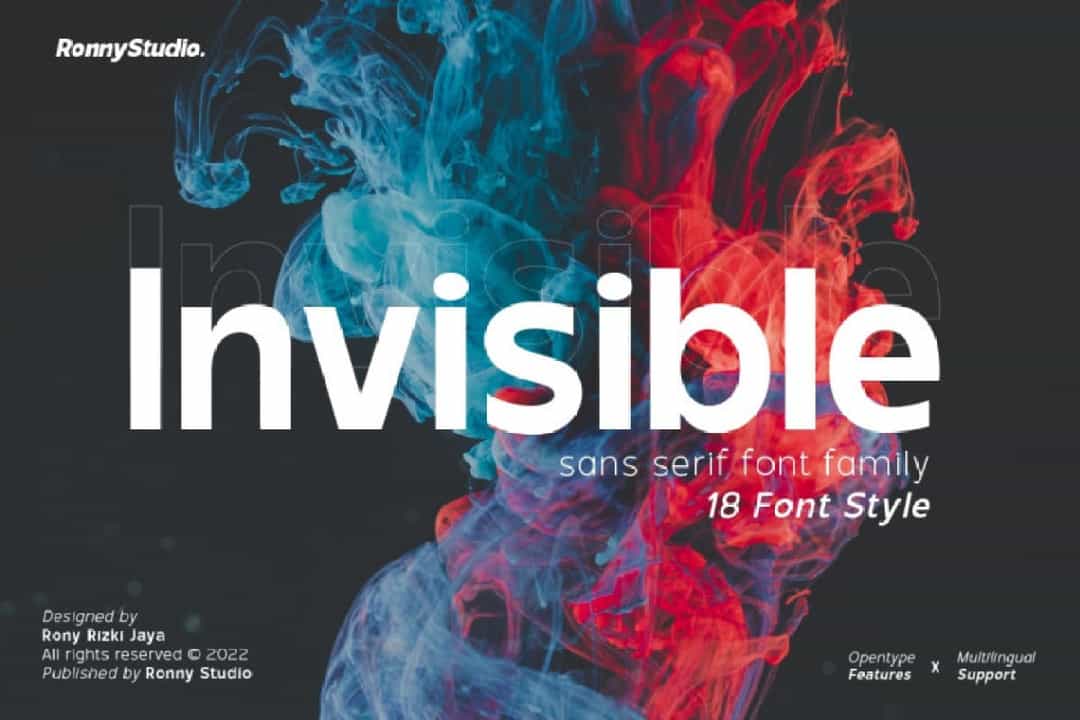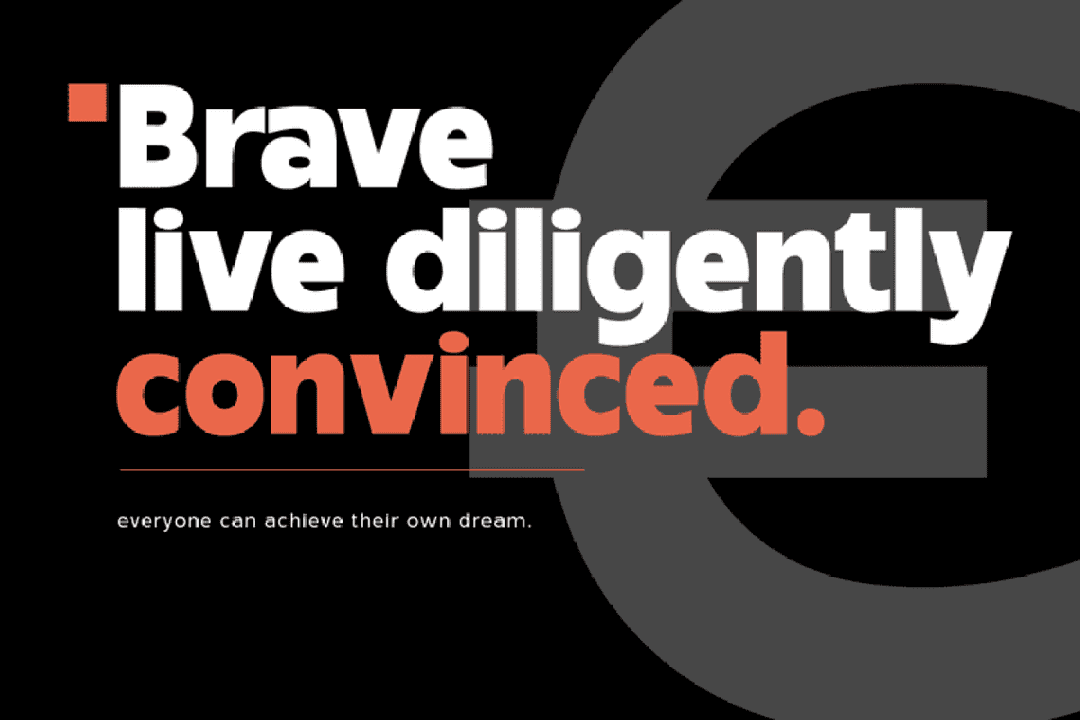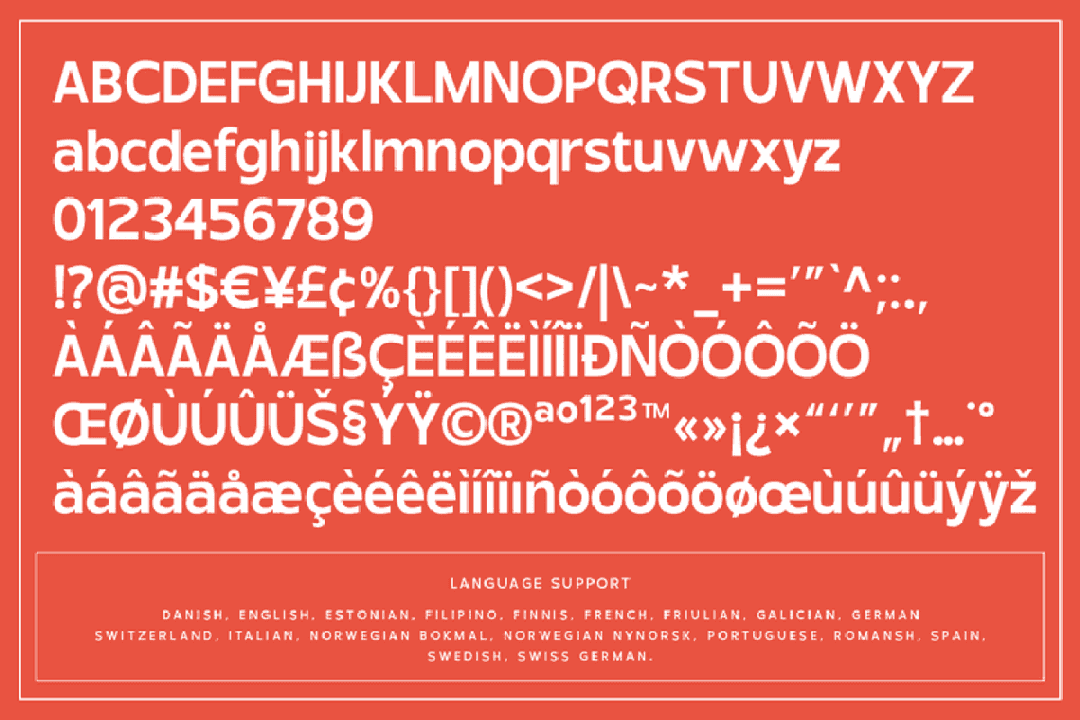
Invisible is a clean and slim sans serif font designed for use in headline fonts, logotypes, branding projects, corporate identities, images and apparel industry posters as well as movie, music magazine posters movie posters game comic book YouTube Instagram websites or any other creative projects that require aesthetic appeal.